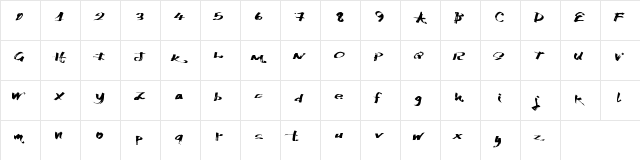
KatchyMarkers Regular Font Preview
KatchyMarkers Regular
KatchyMarkers Regular Font Details
| Foundry | Xerographer Fonts |
| Designer | Xerographer Fonts Max Infeld |
Design Context for KatchyMarkers Typeface
KatchyMarkers is a composed and adaptable typeface that performs quietly and consistently across a wide range of design contexts.